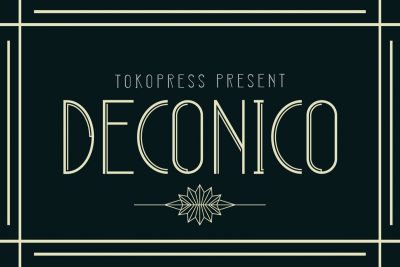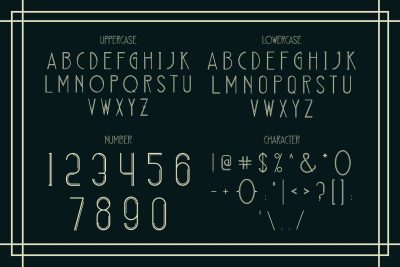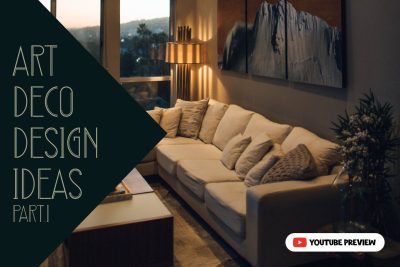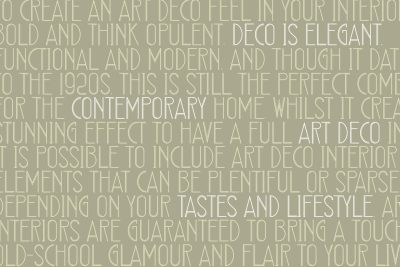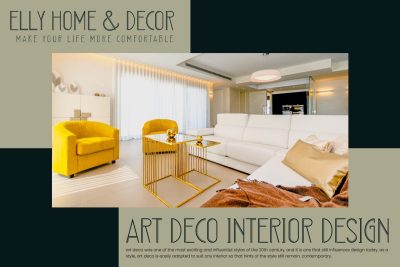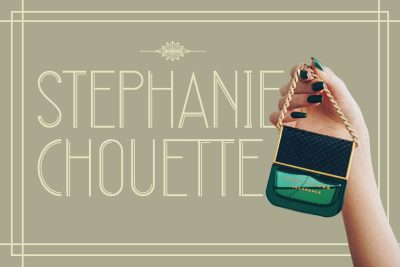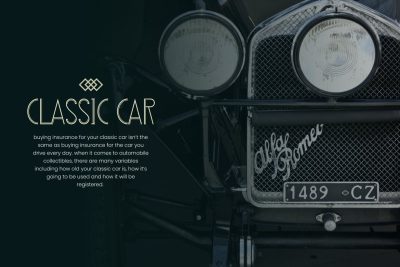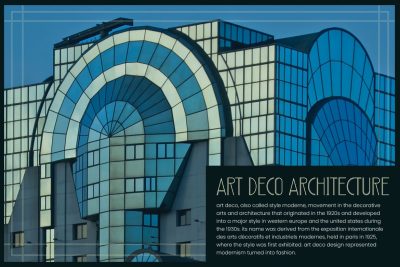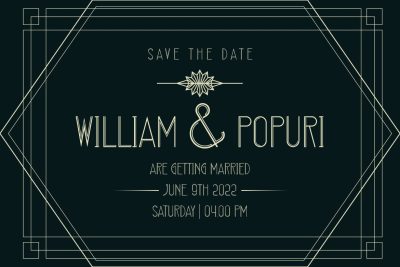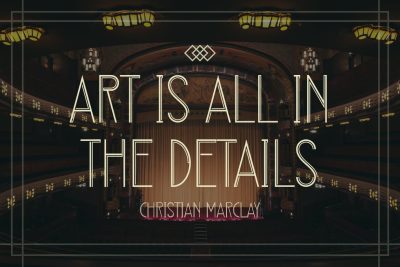
Retro Font DECONICO is a sophisticated typeface inspired by the elegance of the Art Deco era. With its clean, geometric lines and refined curves, it captures the timeless beauty of 1920s and 1930s design. Moreover, its structured letterforms, paired with subtle decorative elements, create a sense of luxury and modernity. The thin, elongated strokes add refinement, making it perfect for projects that require a classy vintage aesthetic.
In addition, the fontโs design emphasizes symmetry and balance, ensuring every character looks harmonious. It works seamlessly across various formats, whether for digital platforms or print materials. Consequently, Retro Font DECONICO is ideal for titles, logos, and branding projects that demand sophistication. Furthermore, its understated decorative motifs enhance its charm, helping it stand out in Art Deco-inspired designs.
Retro Font DECONICO Perfect for Designers and Businesses
Retro Font DECONICO is perfect for graphic designers and branding specialists seeking elegant vintage styles. It suits industries like luxury fashion, upscale hospitality, and artisanal products. These businesses can use the font to create a refined visual identity that appeals to a discerning audience.
Moreover, event planners and marketers will benefit greatly from DECONICO. Itโs ideal for invitations, posters, and signage for glamorous events like weddings, galas, or retro-themed parties. Its geometric precision and stylish details add sophistication to every application.
Additionally, content creators and social media marketers can use the font to craft eye-catching graphics. Platforms like Instagram and Pinterest are perfect for showcasing its vintage charm. As a result, the font elevates campaigns and helps them stand out in competitive spaces.
Finally, Retro Font DECONICO is great for personal projects. For example, you can use it for custom stationery, home decor artwork, or DIY invitations. Its versatility ensures it enhances a wide range of creative ideas while maintaining a luxurious look.
In conclusion, this font isnโt just a toolโitโs a statement. DECONICO brings class and nostalgia to every project, making it essential for lovers of Art Deco design.